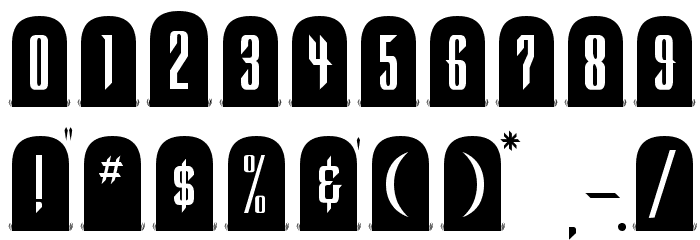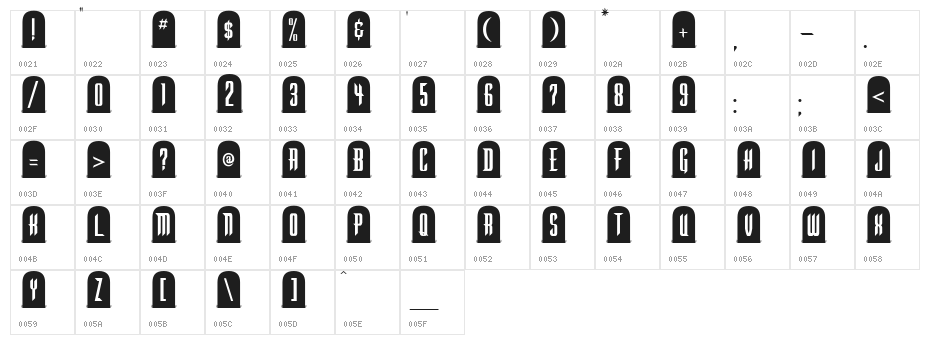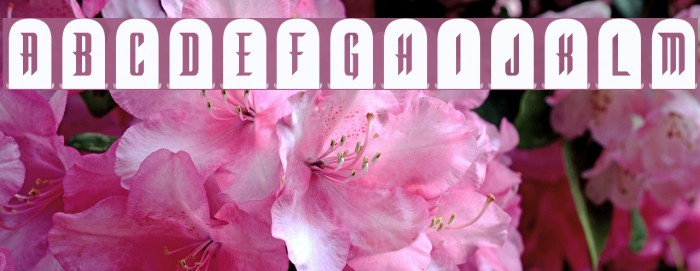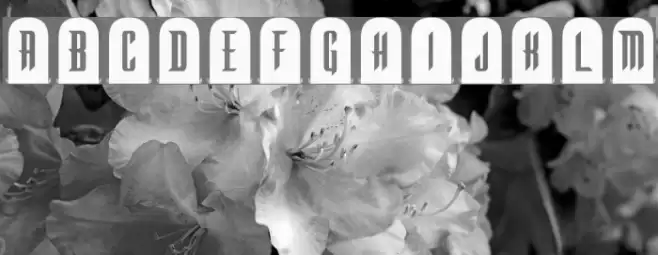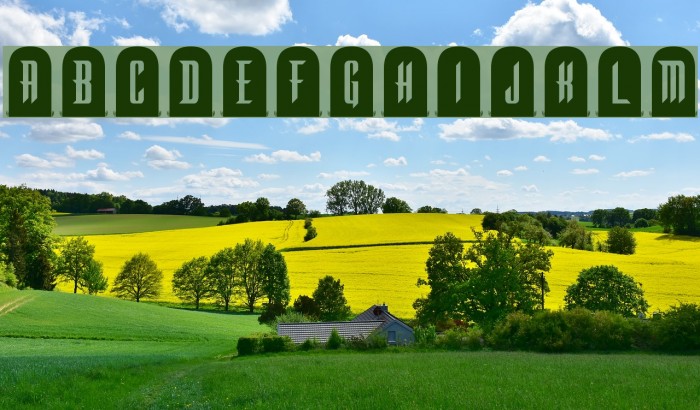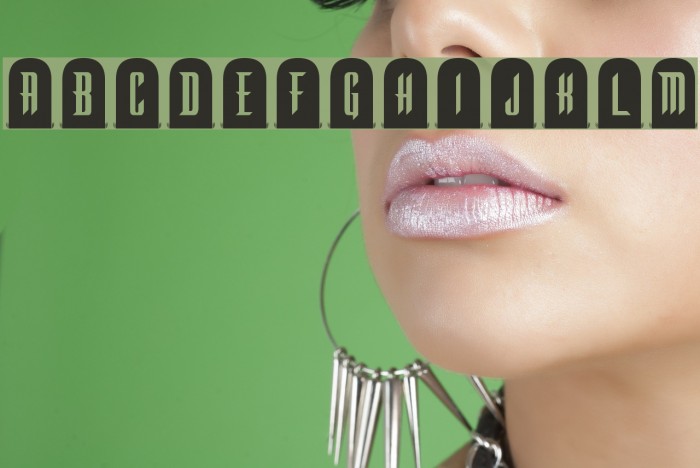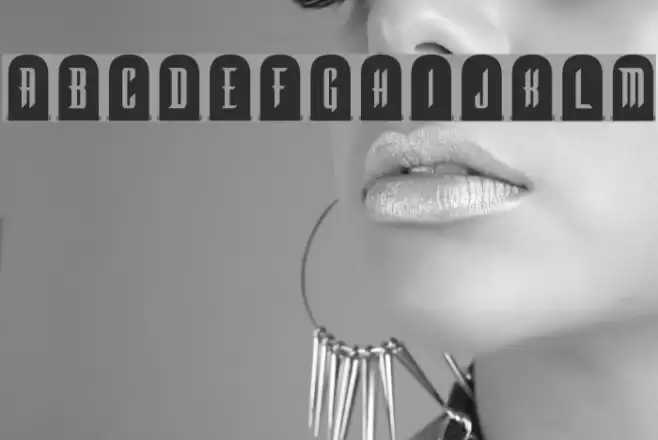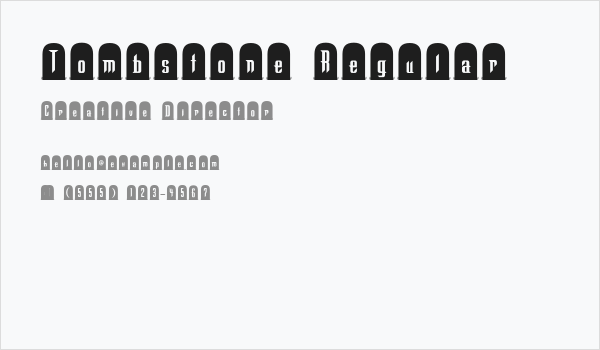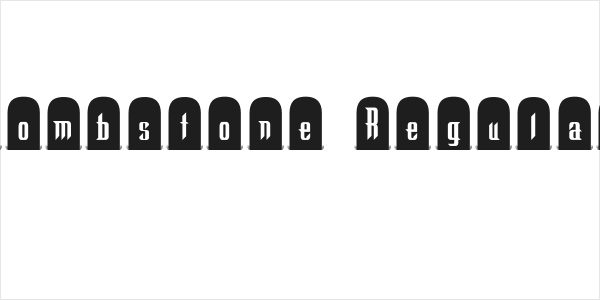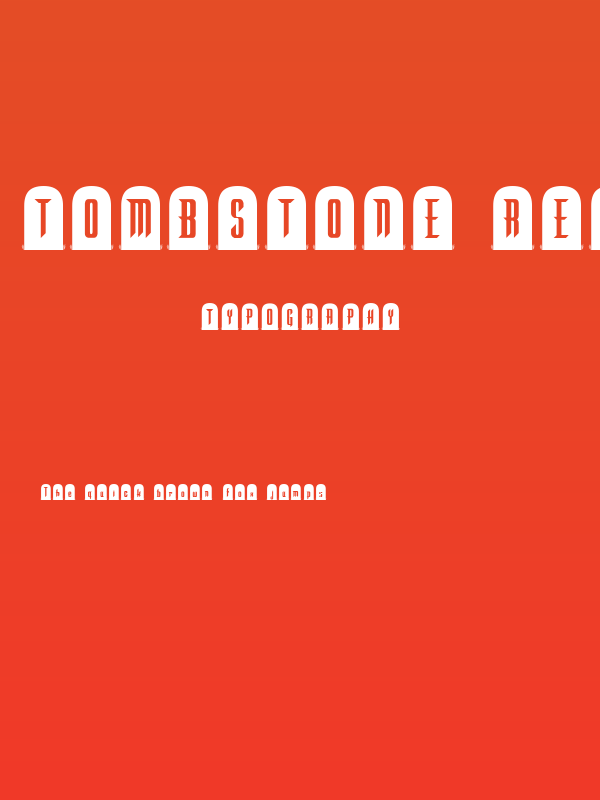
Tombstone Regular Font
Tombstone Regular Description
This font features a unique and bold design reminiscent of classic tombstone engravings. Each character is encased in a tombstone shape, giving it a distinct and memorable appearance. The letters are sharp and angular, with a gothic influence that adds a sense of mystery and intrigue. The uppercase and lowercase letters maintain a consistent style, while the numbers and special characters complement the overall theme. This font is perfect for projects that require a dramatic and eye-catching typeface.
| Overall Style | Gothic, Decorative |
| Use Case | Headlines, Posters, Themed Invitations |
| Proposed Projects | Ideal for Halloween-themed designs, horror movie posters, spooky invitations, and any project requiring a dramatic and eerie aesthetic. |